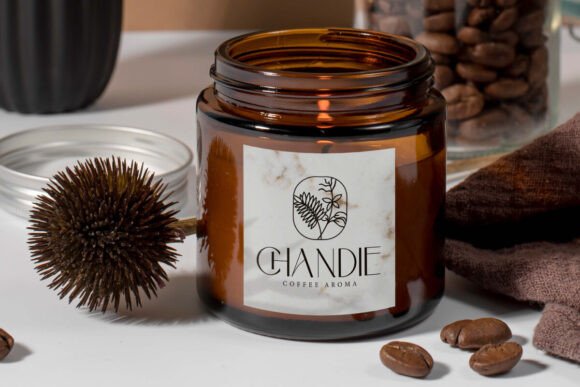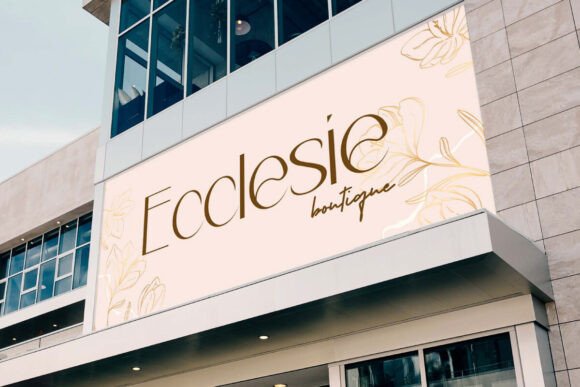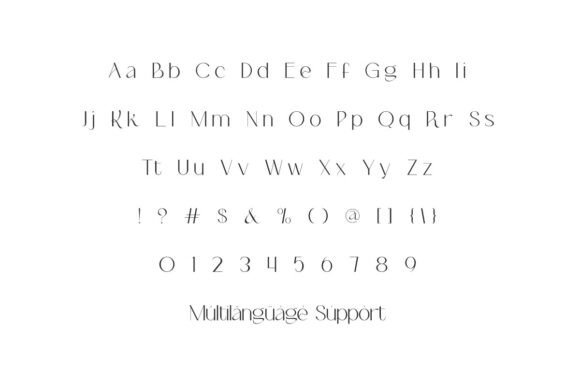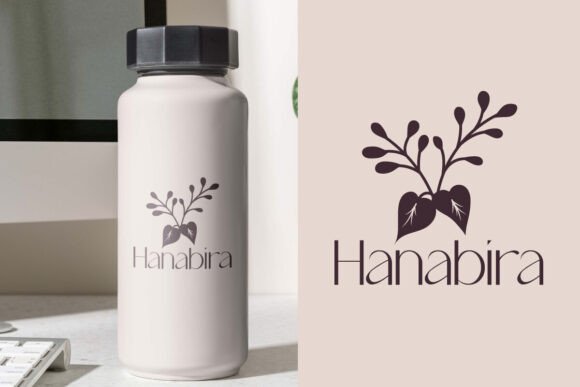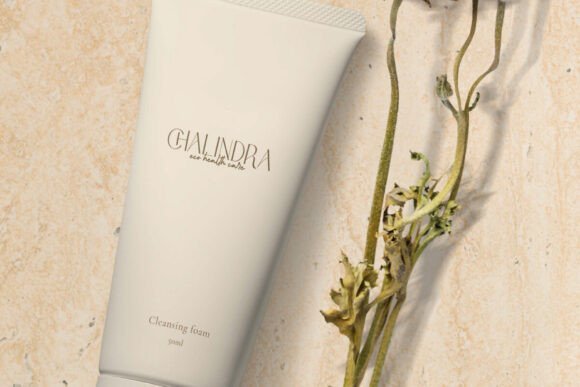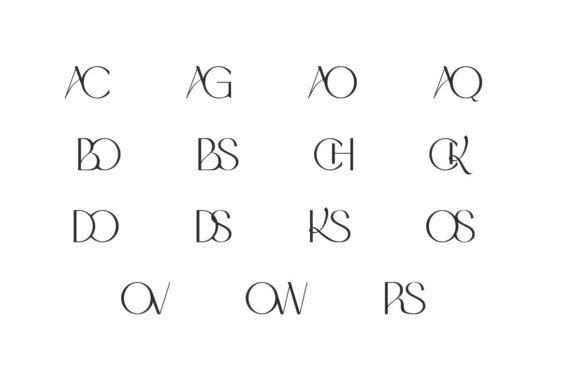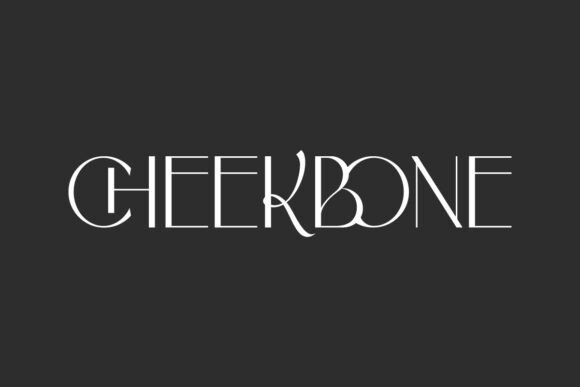
Introducing Cheekbone Font: Elevate Your Designs with Elegance
In the world of typography, fonts play a crucial role in conveying the tone and aesthetic of a brand or design. For those seeking an elegant and sophisticated look, Cheekbone Font is an exceptional choice. This stunning sans serif display font is designed to make a statement, with its thin lines and exquisite ligature and glyphs designs that exude luxury and refinement.
The Characteristics of Cheekbone Font
Cheekbone Font is distinguished by its sleek and modern sans serif design, making it perfect for projects that require a touch of elegance. The font’s thin lines are meticulously crafted to create a sense of sophistication and high-end quality, catching the eye of anyone who sees it. Whether you’re working on a logo, a headline, or any other design element, Cheekbone Font is sure to add a dash of class and glamour.
Ligatures and Glyphs: The Unique Touch
One of the standout features of Cheekbone Font is its beautiful ligatures and glyphs designs. These special characters add a unique touch to any text, making it truly stand out. Ligatures, which are combinations of two or more letters joined together, provide a fluid and connected look that enhances readability and aesthetic appeal. The glyphs, on the other hand, offer a range of alternative characters that can be used to add variety and creativity to your designs.
Versatility Across Industries
The versatility of Cheekbone Font is one of its most compelling advantages. Its elegant and sophisticated design makes it suitable for a wide range of industries and applications. Here are some of the sectors that can greatly benefit from using Cheekbone Font:
- Accessories and Jewelry: Perfect for creating luxurious brand logos or product descriptions that convey high-end quality.
- Event Organizer: Ideal for invitations, event branding, and promotional materials that require a touch of class.
- Fashion: Great for fashion brand logos, magazine headlines, or clothing line catalogs that need a stylish edge.
- Furniture: Suitable for luxury furniture brand websites, catalogs, or promotional materials that aim to convey sophistication.
- Handicrafts: Adds an elegant touch to branding and marketing materials for artisans and crafters.
- Interior Design: Perfect for branding, portfolios, or promotional materials that showcase high-end interior design services.
- Photography: Great for photography portfolios or website headers that need a sophisticated look.
- Printing and Publishing: Suitable for book covers, magazine layouts, or any printed materials that require an elegant typography.
- Restaurant: Ideal for upscale restaurant branding, menus, or website headers that aim to convey luxury.
- Spa and Salon: Adds a touch of elegance to branding and promotional materials for spas and salons.
Why Choose Cheekbone Font?
Choosing Cheekbone Font for your design project comes with numerous benefits. Here are a few reasons why it’s a preferred choice among designers and crafters:
- Elegance: It adds a sophisticated and luxurious feel to any design.
- Versatility: Suitable for a wide range of industries and applications.
- Readability: Despite its elegance, it maintains high readability even at smaller sizes.
- Customization: The ligatures and glyphs provide ample opportunities for customization and creativity.
Cheekbone Font is more than just a typeface; it’s a design statement. With its elegant sans serif design, stunning ligatures, and glyphs, it brings a level of sophistication and luxury to any project. Whether you’re a designer working on a client’s branding or a crafter looking to elevate your product labels, Cheekbone Font is an excellent choice. Its versatility across various industries and applications makes it a valuable addition to any designer’s or crafter’s toolkit. Embrace the elegance and make your designs dazzle with Cheekbone Font.